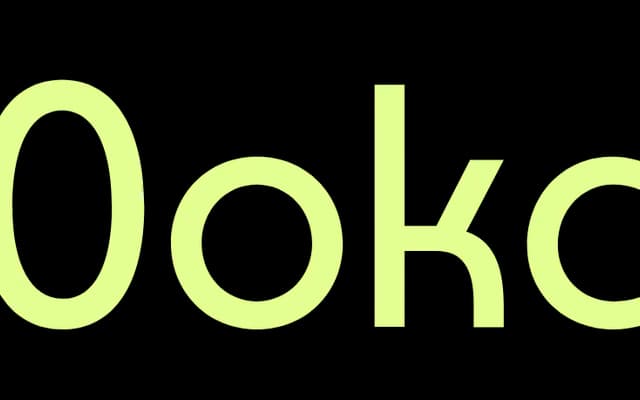
DT Straits Sans
Death of Typography · Lee Qiu Wen
A geometric sans built on art-deco construction principles, with condensed capitals drawn from original source material and humanistic stroke endings that soften its rigid geometry.
Designed by Lee Qiu Wen and released by Singapore-based collective Death of Typography, the family runs nine weights from Thin to Black. Capitals reference condensed historical source material while missing lowercase characters were reimagined at standard width, creating a deliberate tension between the two cases. Geometric forms are tempered by humanistic terminals, making the family workable at text sizes despite its display sensibility.
The foundry describes geometric art-deco construction with humanistic endings, placing it firmly in the geometric sans category with an art-deco influence distinguishing it from purely neutral grotesques.